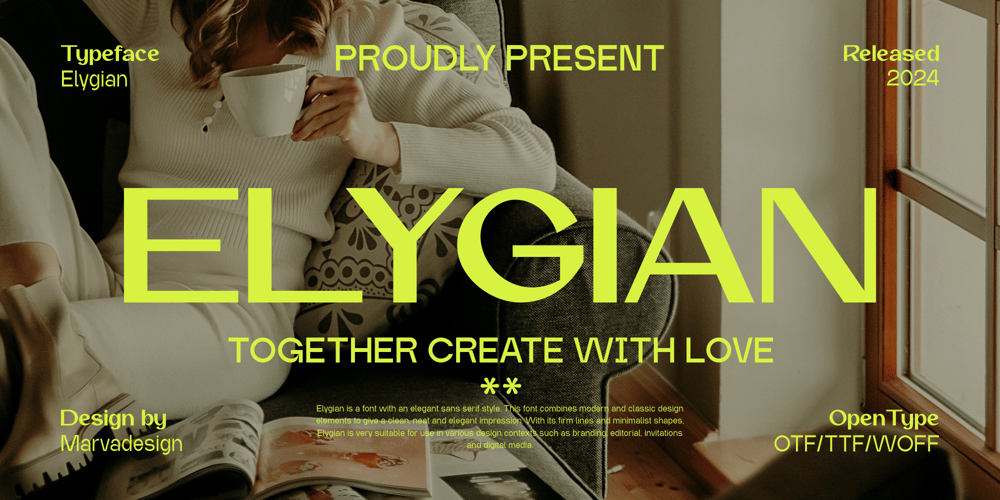
Elygian
Elygian font
Elygian Font Family was designed by Febrie Setiawan and published by Marvadesign. Elygian contains 1 styles and family package options. Introducing Elygian is a font with an elegant sans serif style. This font combines modern and classic design elements to give a clean, neat and elegant impression. With its firm lines and minimalist shapes, Elygian is very suitable for use in various design contexts such as branding, editorial, invitations and digital media.